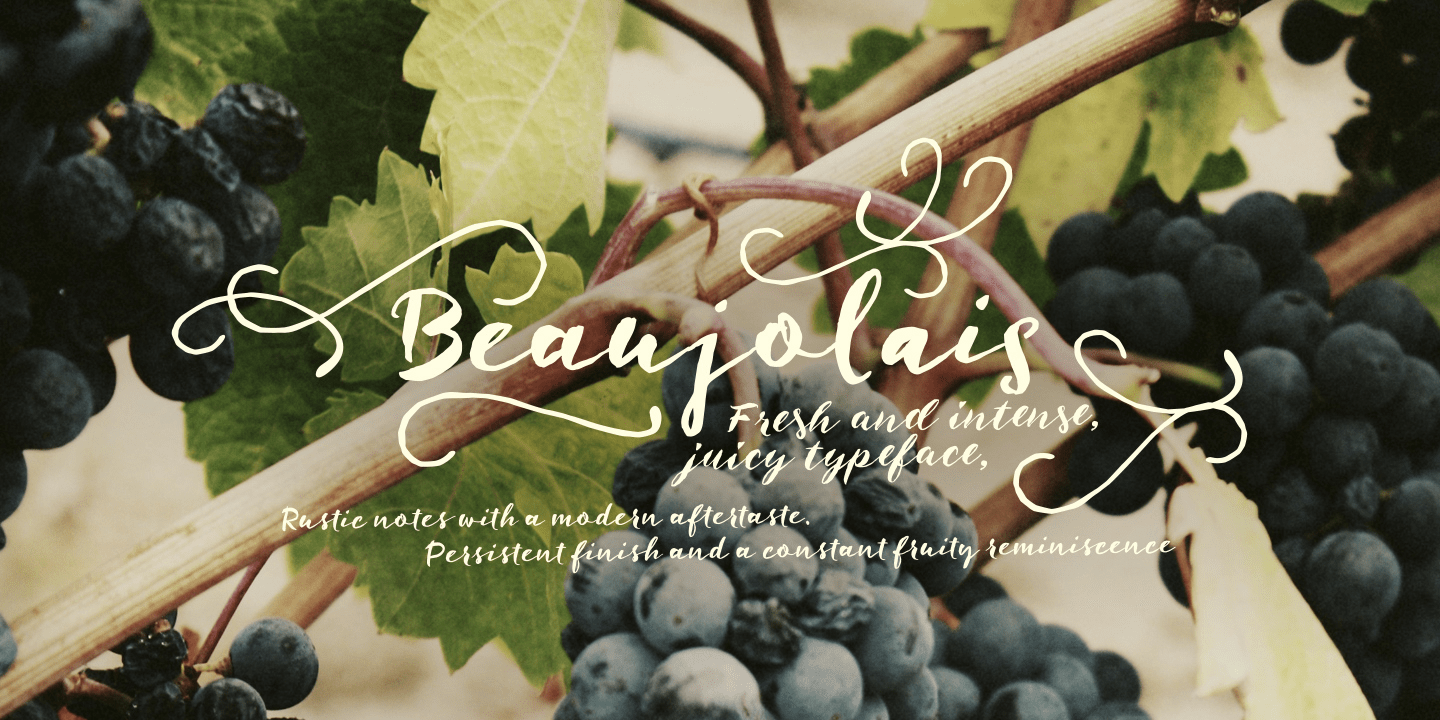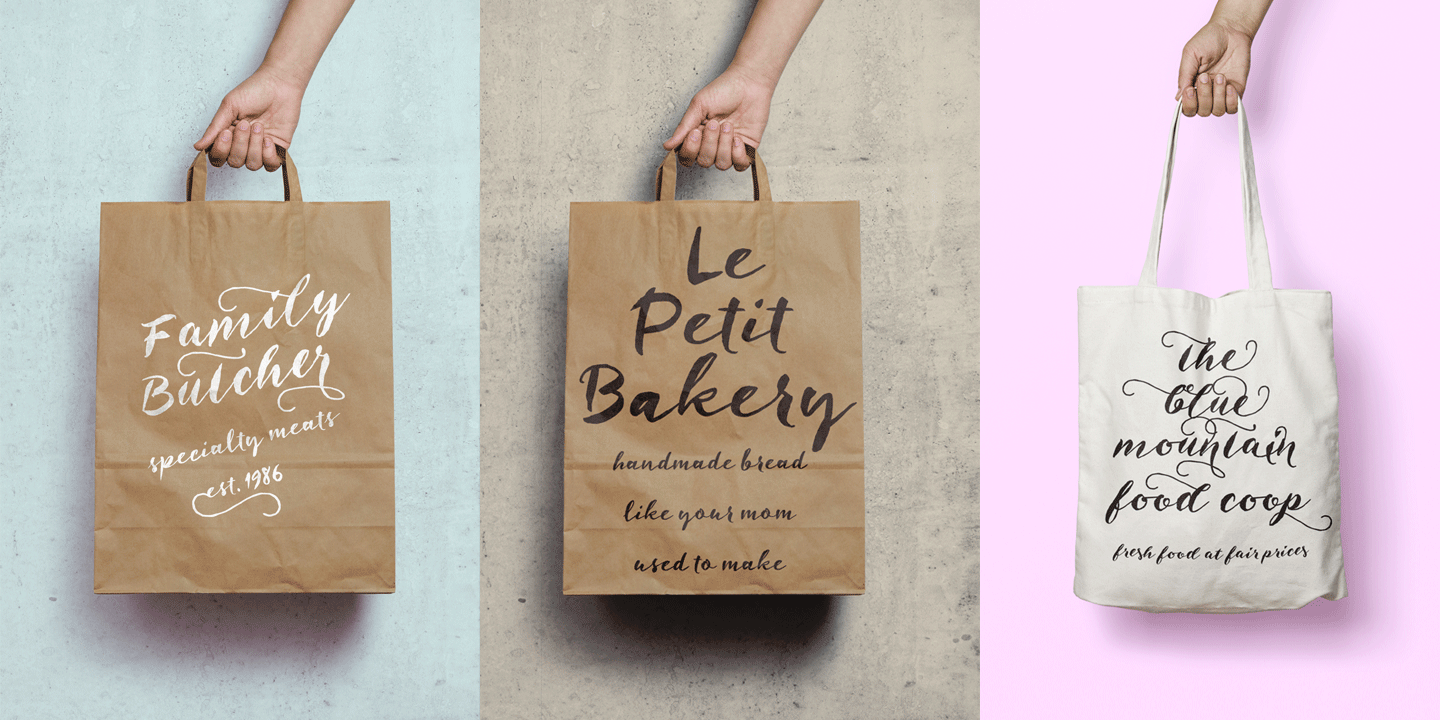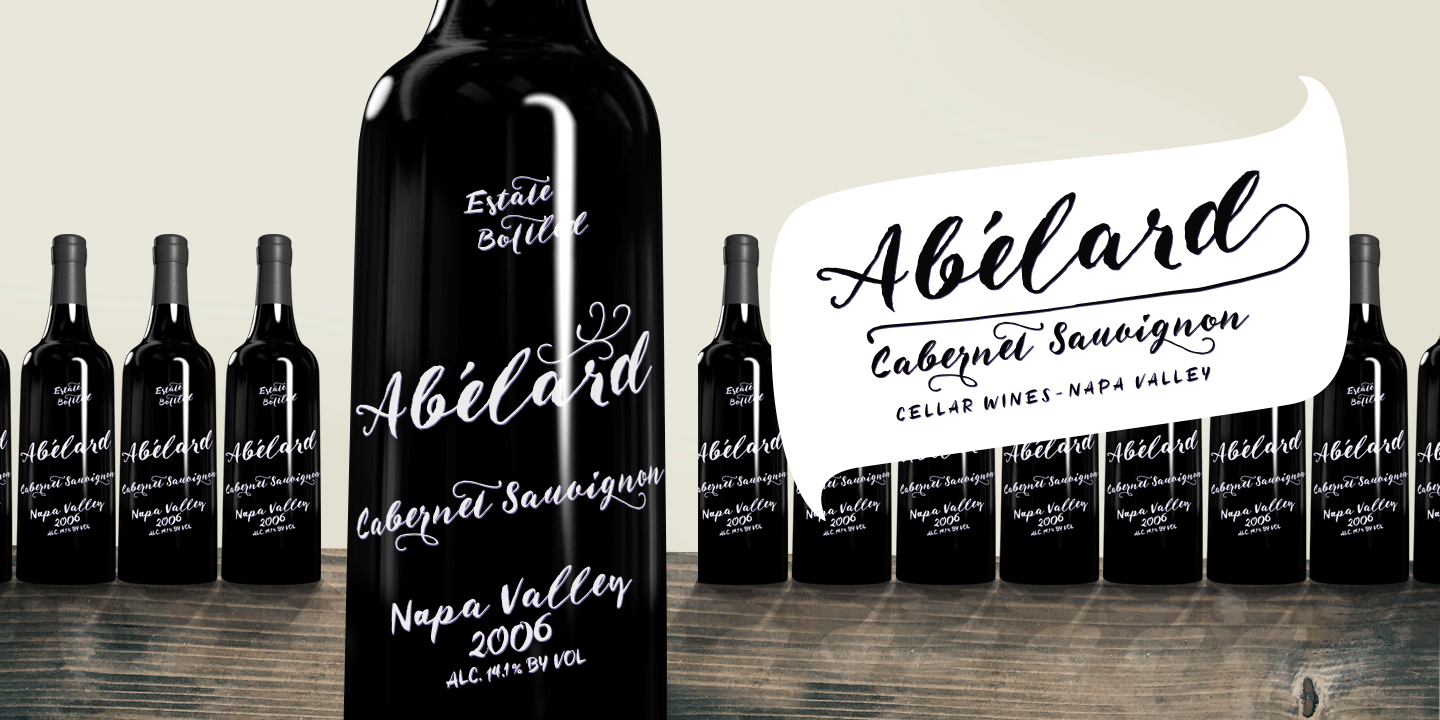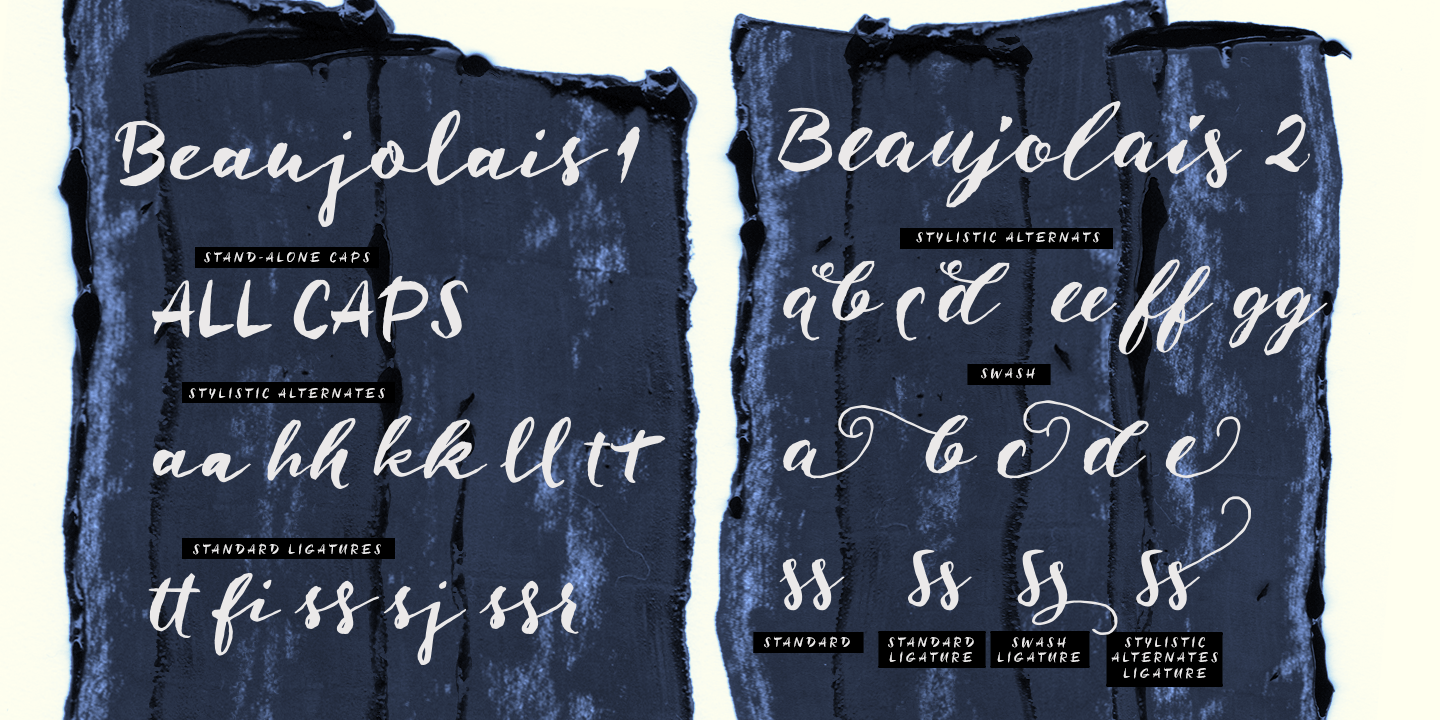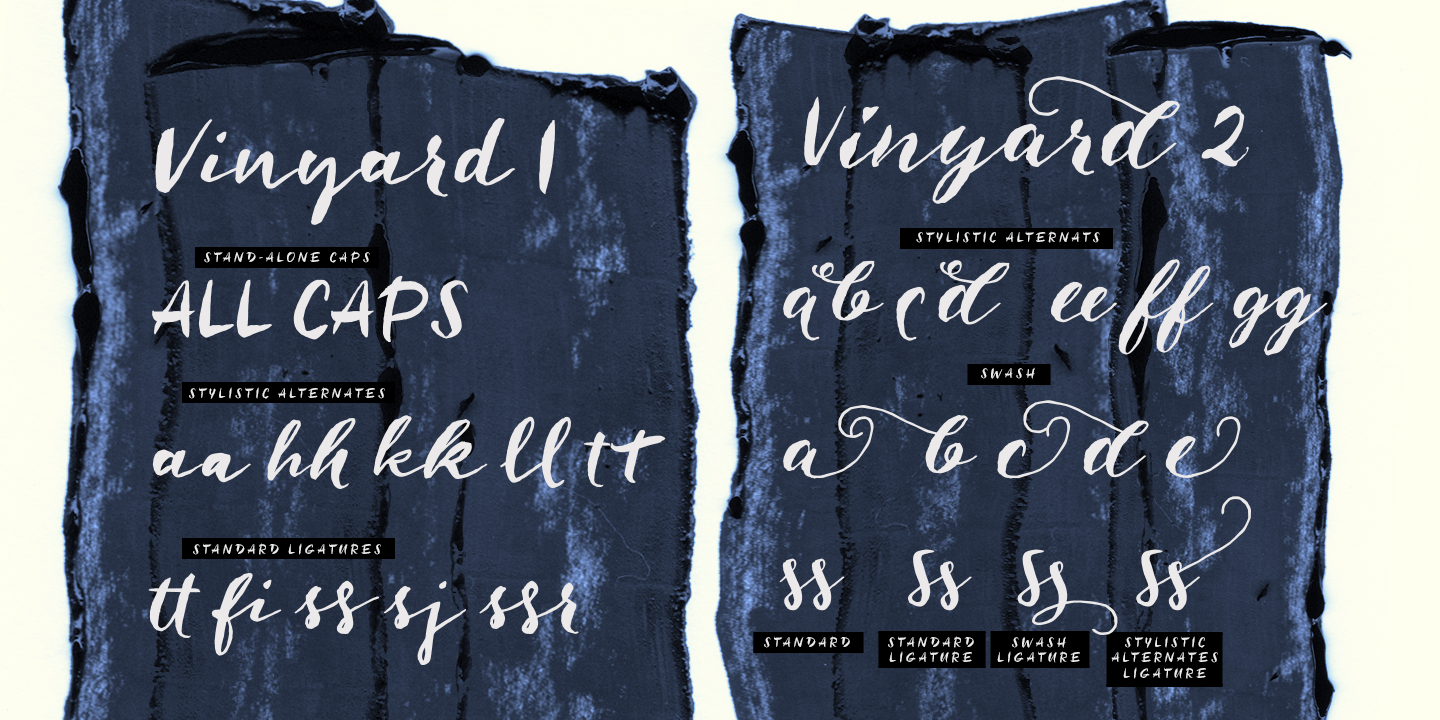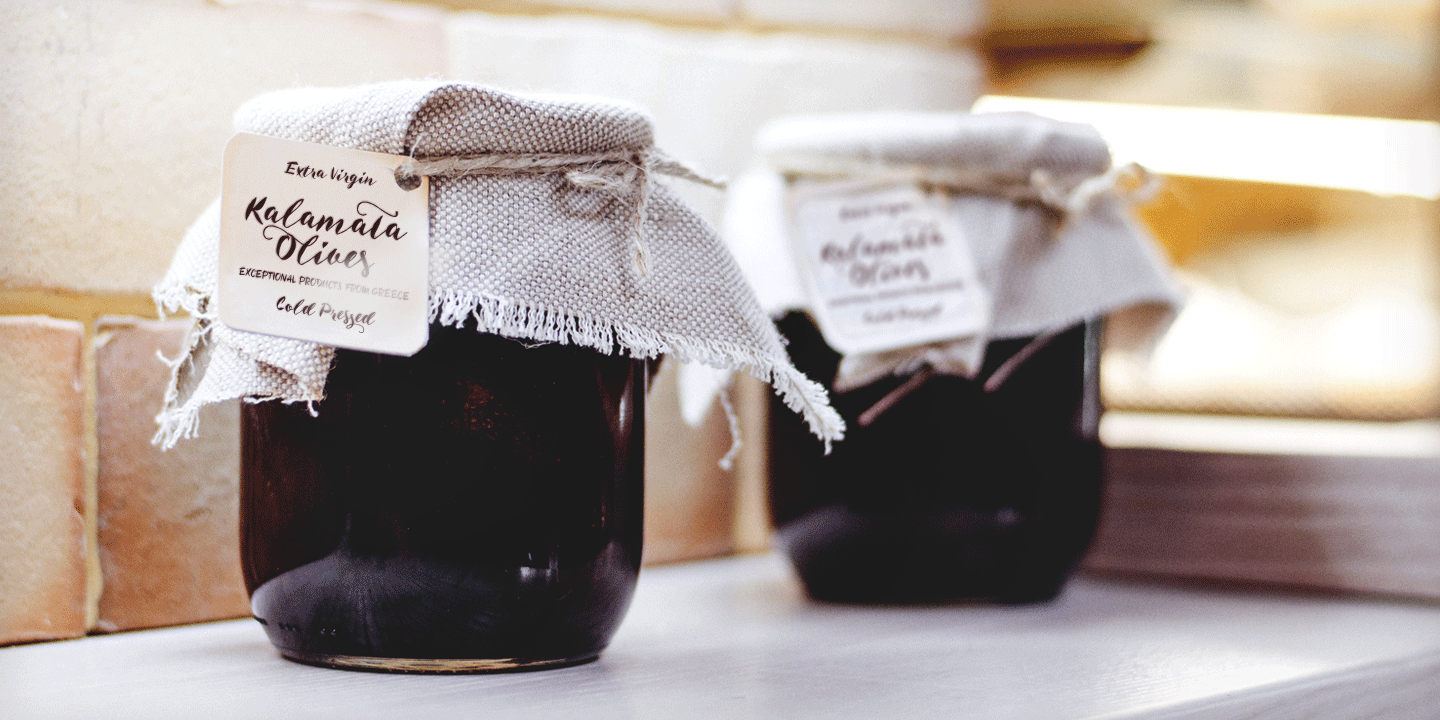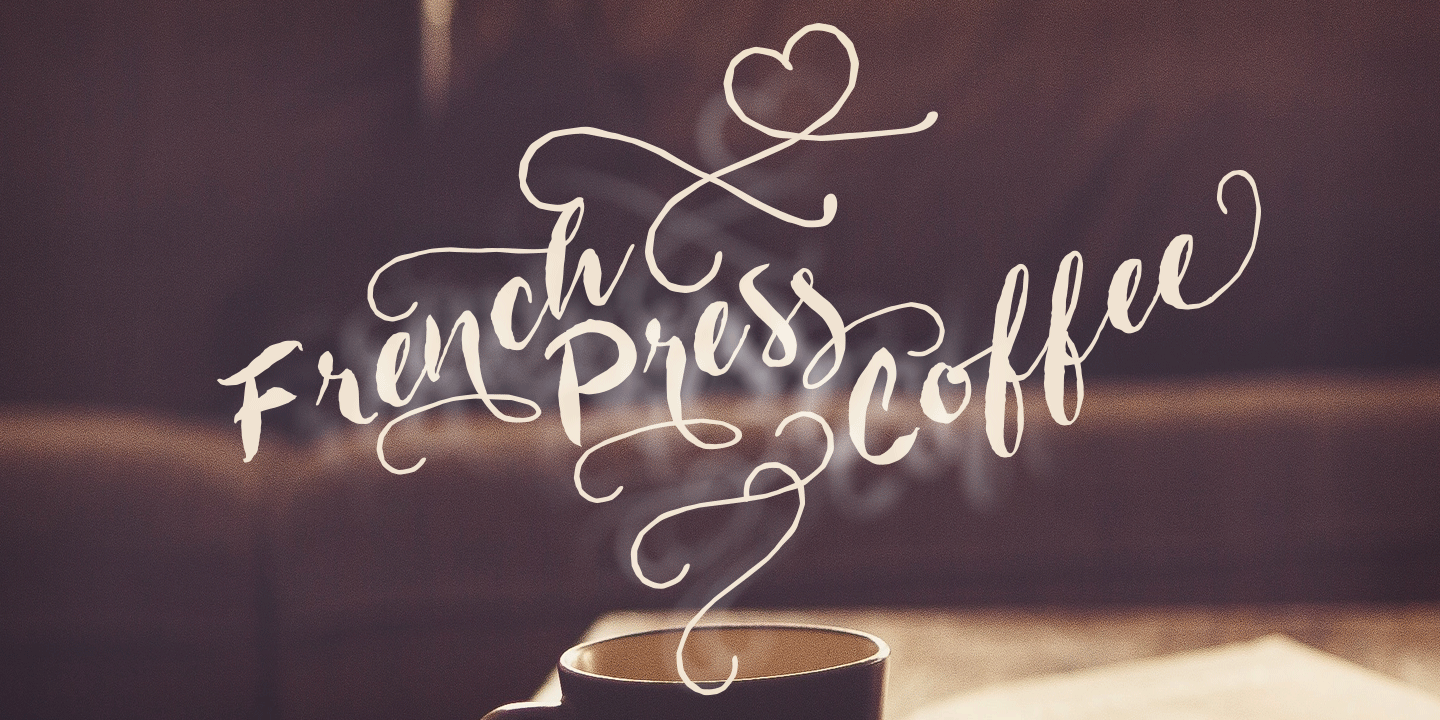
Beaujolais
Beaujolais is an organic brush family of two scripts and an ornament set. It is both rustic and modern -fast, contemporary and handmade. Beaujolais is equipped with OpenType features such as Automatic Ligature, Stylistic Alternates and Swash to make the experience soft and silky. Noble tannins with a touches of minerality, persistent finish and a constant fruity reminiscence. Ready to be enjoyed.